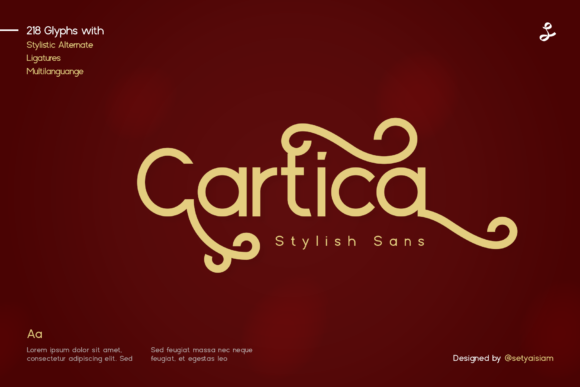
The Cartica Font: A Designer’s New Best Friend
I still remember the frustration of working on a project, hours poured into every detail, and then realizing that the font just wasn’t doing it for me. I was designing a brochure for a trendy new cafe, and I needed a font that was modern, clean, and highly legible. The client was specific about wanting something that would appeal to a young audience without compromising on professionalism. After scouring through countless font libraries, I stumbled upon the Cartica font. It was love at first sight! ✨
An Honest Review of Cartica Font
What I Love About Cartica
- ✅ Minimal and Neat Design: Cartica’s sans serif design is sleek and modern, making it perfect for projects that require a clean look.
- ✅ Versatility: This font can easily be matched with an incredibly large set of projects, from digital platforms to print materials.
- ✅ High Legibility: Cartica’s clear and simple design ensures that your text is easy to read, even at smaller sizes.
- ✅ OpenType Features: Cartica comes with a range of OpenType features, including stylistic alternates and glyphs, which can add a creative touch to your designs.
While Cartica is an excellent font, there are a few things to keep in mind: 🤔
- ⚠️ Limited Character Set: Some users have noted that Cartica’s character set could be more extensive, particularly for non-English languages.
- ⚠️ Not Ideal for Body Text: While Cartica is highly legible, its minimalist design might not be the best choice for long blocks of body text, where a more traditional serif font might be more suitable.
The Designer Inspiration Behind Cartica
Cartica was designed with the modern creative in mind. Its designer aimed to create a font that was both minimalistic and highly functional. Inspired by the clean lines of urban landscapes and the simplicity of digital interfaces, Cartica brings a fresh perspective to the world of typography.
Q: What is the Cartica font best used for?
A: Cartica is best used for projects that require a modern, clean, and highly legible sans serif font. It’s ideal for branding, digital content, and print materials.
Q: Does Cartica support OpenType features?
A: Yes, Cartica comes with a range of OpenType features, including stylistic alternates and glyphs, which can add a creative touch to your designs.
Q: Is Cartica suitable for body text?
A: While Cartica is highly legible, its minimalist design might not be the best choice for long blocks of body text. It’s better suited for headings, titles, and short paragraphs.